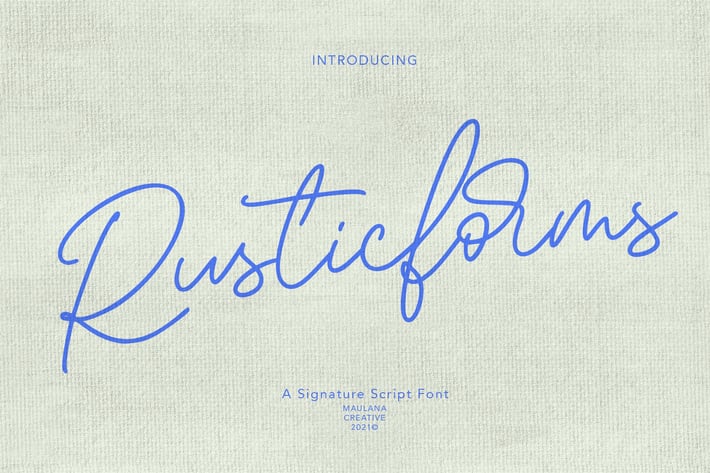
Rusticforms Signature Script Font
Rusticform is a curvy signature script font, with light mono-line stroke, slanted and fun character. It has Opentype features ligatures of character and alternate lowercase option, To give you an extra creative work. Rusticform signature font support multilingual more than 100+ language. This font is good for logo design, Social media, Movie Titles, Books Titles, a short text even a long text letter and good for your secondary text font with sans or serif. Make a stunning work with Rusticform font.